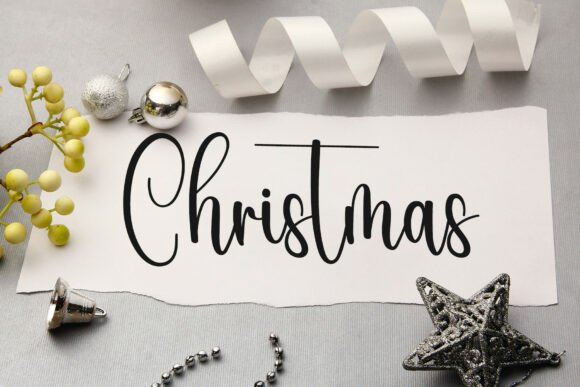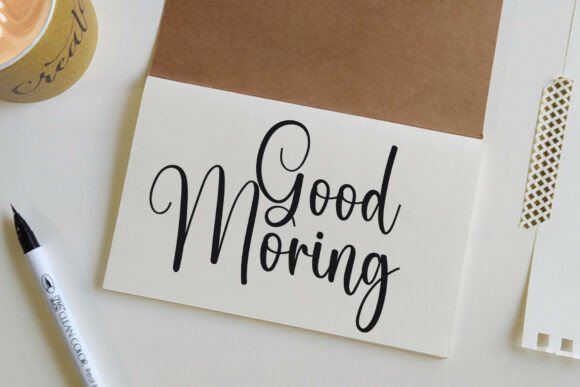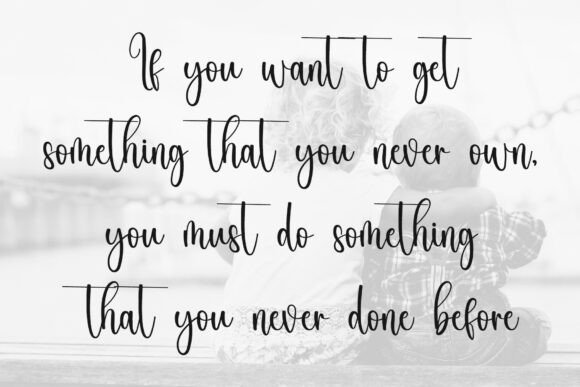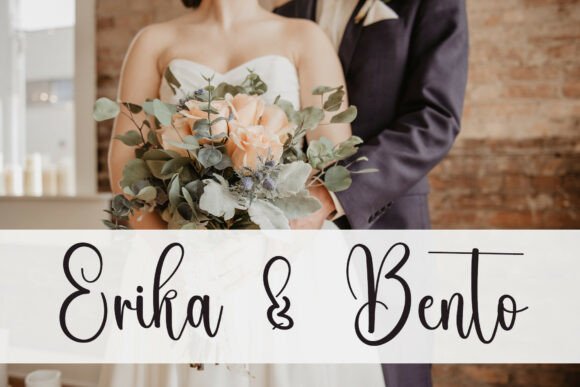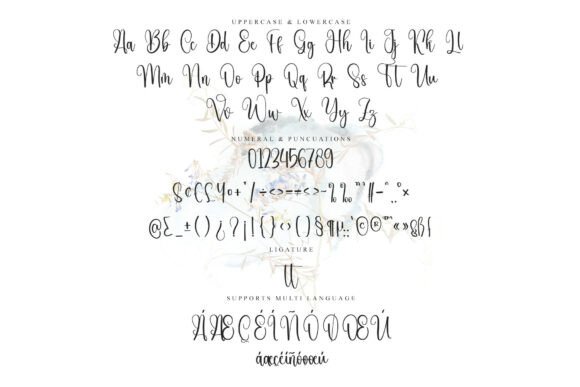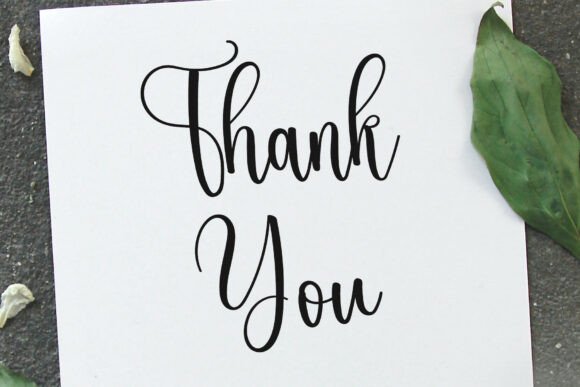
Introducing Bookish Font: The Epitome of Elegance and Authority
In the realm of typography, a font can make or break the visual appeal of a design. For those seeking a script handwriting font that embodies both elegance and authority, look no further than Bookish Font. This beautiful typeface seamlessly blends fluid strokes with a commanding presence, making it an ideal choice for designers and crafters who want to add a touch of sophistication to their projects.
The Essence of Bookish Font
Bookish Font is an elegant script handwriting font that exudes confidence and refinement. Its smooth curves and dynamic flow bring a sense of movement and energy to any design, making it perfect for projects that require a font that is both stylish and authoritative. Whether you’re working on a branding project, a wedding invitation, or a packaging design, Bookish Font is sure to make a lasting impression.
Key Features of Bookish Font
- Fluid Strokes: Bookish Font features fluid strokes that give it a sense of movement and fluidity. This makes it perfect for designs that require a sense of dynamism and energy.
- Commanding Presence: Despite its elegant appearance, Bookish Font has a commanding presence that makes it perfect for projects that require a sense of authority and confidence.
- Smooth Curves: The font’s smooth curves give it a sense of sophistication and refinement, making it ideal for high-end designs and luxury brands.
- Dynamic Flow: Bookish Font’s dynamic flow makes it perfect for designs that require a sense of movement and energy.
Use Cases for Bookish Font
Bookish Font is a versatile typeface that can be used in a variety of design projects, including:
- Branding: Use Bookish Font to create a sophisticated and authoritative brand identity that exudes confidence and refinement.
- Wedding Invitations: Add a touch of elegance and romance to your wedding invitations with Bookish Font.
- Packaging Design: Use Bookish Font to create eye-catching packaging designs that stand out on store shelves.
- Advertising: Bookish Font is perfect for advertising projects that require a sense of sophistication and authority.
Why Choose Bookish Font?
- Unique Style: Bookish Font has a unique style that sets it apart from other fonts. Its blend of elegance and authority makes it perfect for designers who want to create something truly special.
- Easy to Read: Despite its elegant appearance, Bookish Font is easy to read, making it perfect for designs that require a sense of sophistication and refinement.